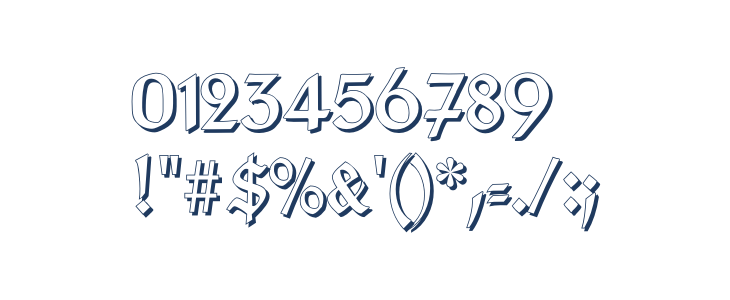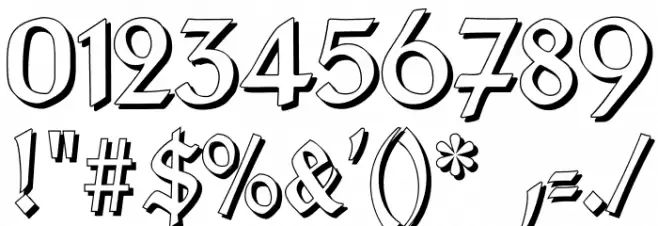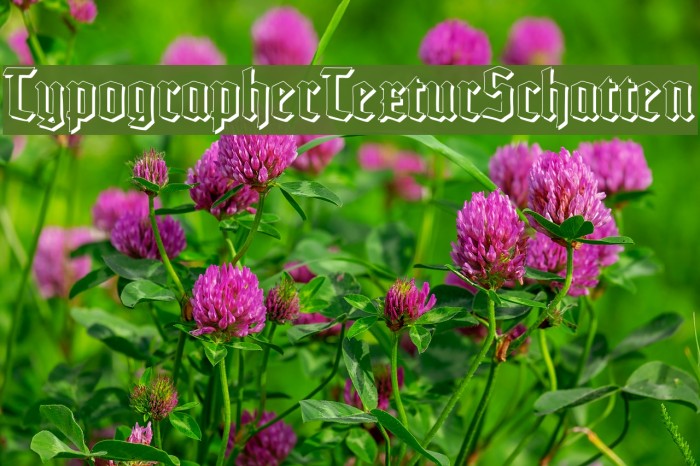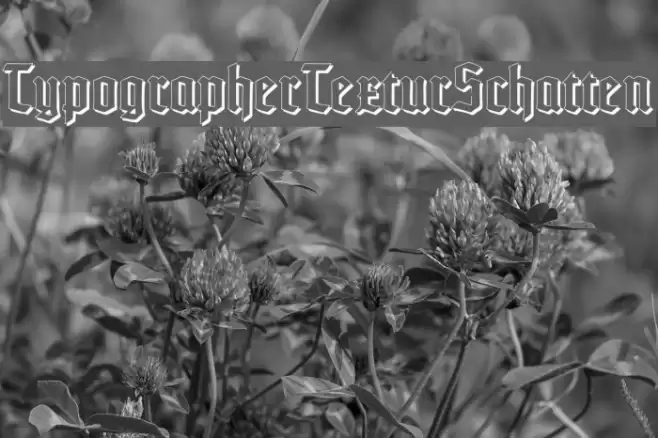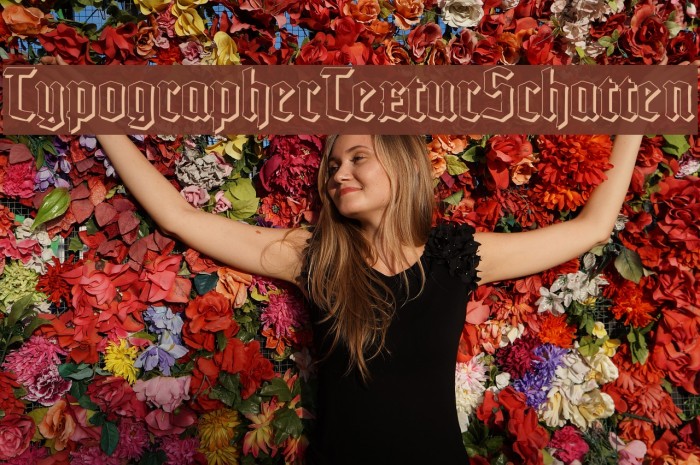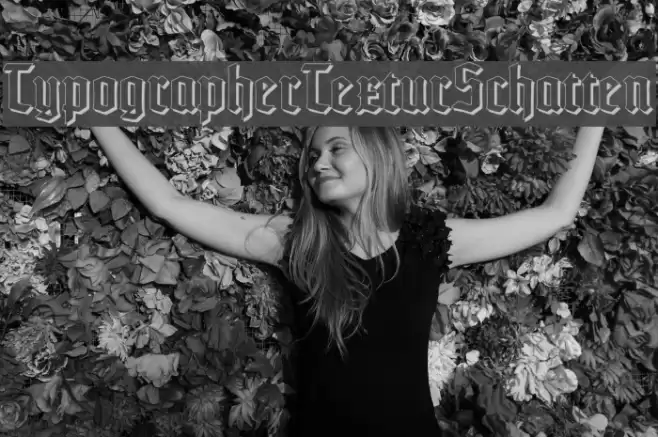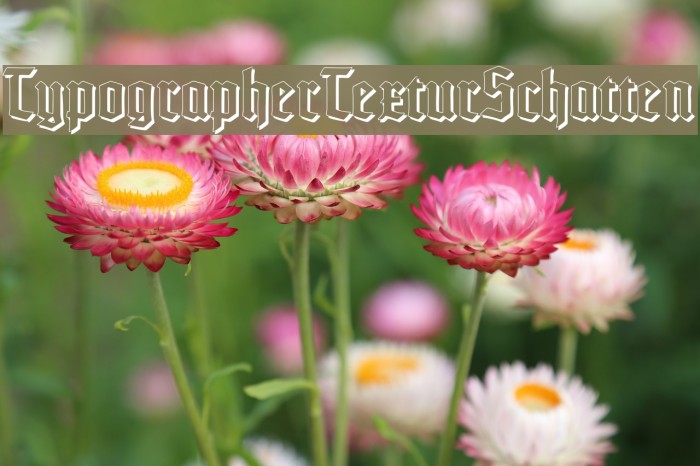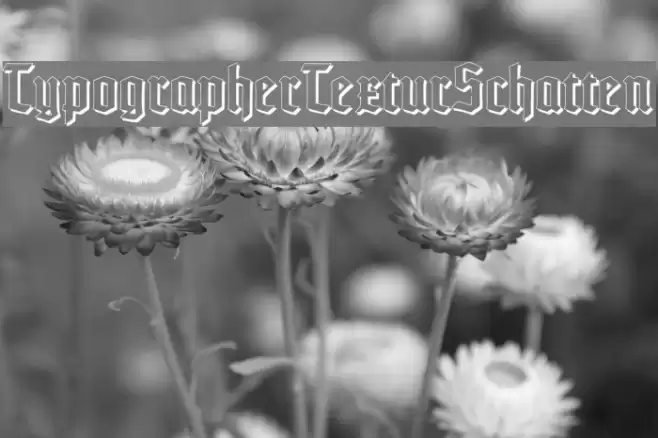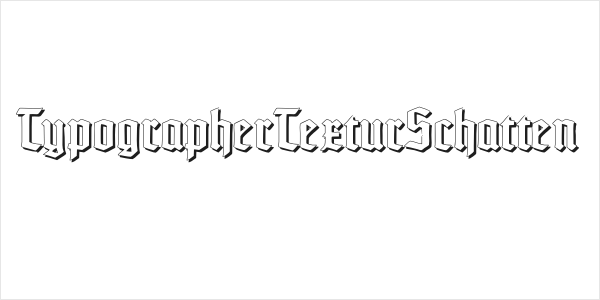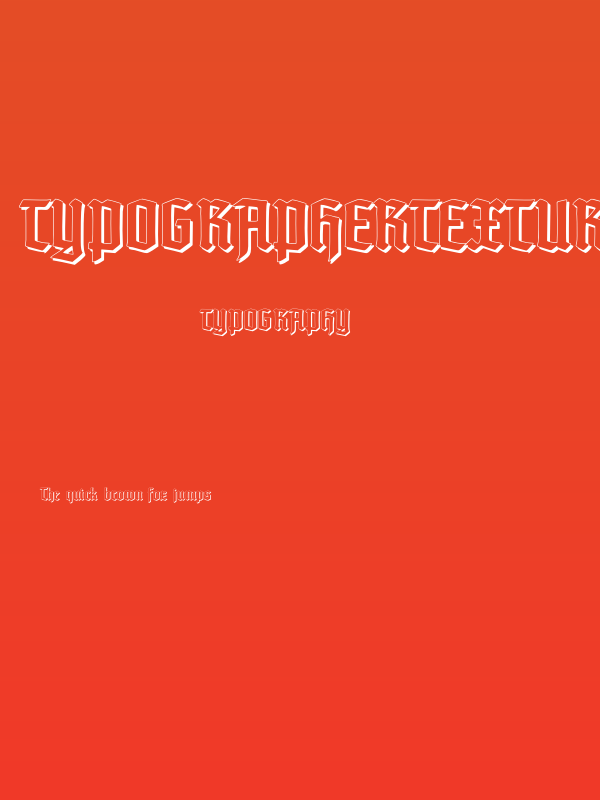
TypographerTexturSchatten Font
TypographerTexturSchatten Description
This font features a bold, shadowed style reminiscent of traditional blackletter typography. Each character is designed with a distinct angular form, giving it a strong, authoritative presence. The shadow effect adds depth and dimension, enhancing its visual impact. The uppercase and lowercase letters maintain a consistent design, with sharp edges and intricate details. Numbers and special characters are equally stylized, ensuring uniformity across all elements. This font is ideal for projects that require a historical or gothic aesthetic, offering a dramatic flair that captures attention.
| Use Case | Logos, Headlines, Decorative purposes |
| Proposed Projects | Suitable for historical themed designs, gothic posters, book covers, and branding that requires a dramatic impact. |